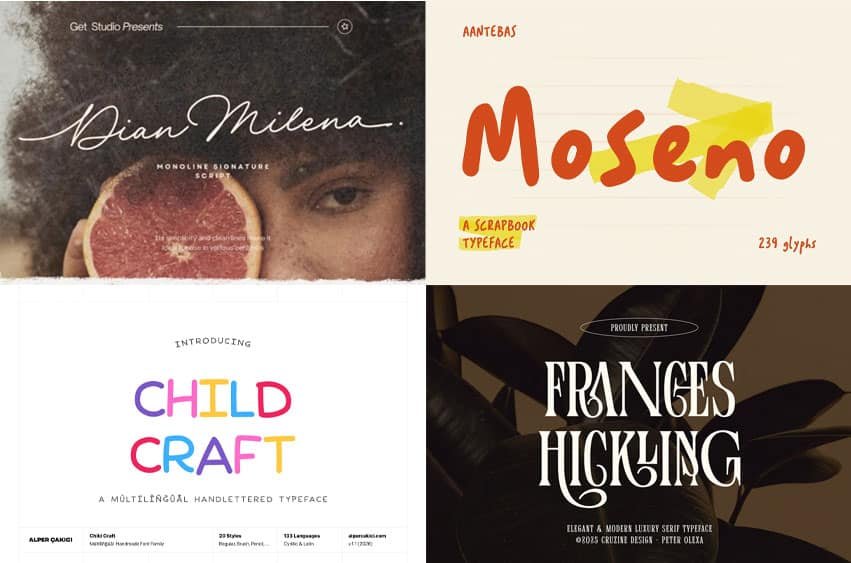
If you sell custom signs, invitations, mugs, or printables, your font choice *is* your product. Not a supporting element — the actual thing the customer is paying for. Which makes it strange how many shops run the same four free scripts every other shop is running.
1. Dian Milena Font— the wedding workhorse
Dian Milena – Signature Script
Signature-style scripts are the backbone of the wedding category, and this one has the casual-but-expensive quality that works on a save-the-date without tipping into formal calligraphy.
Use it for: the couple’s names on an invitation suite, welcome signs, place cards.
Pair it with: a plain serif for the details. Date, time, venue, and RSVP copy should never be in script — your guests need to read an address, not admire it.
Test it on real names before you list. Script fonts break down on specific letter pairs. Type out “Jennifer,” “Ryan,” “Zoe,” anything with a double-L or a capital followed by a descender. That’s where the connections either work or visibly don’t.
2. Moseno Font — for the scrapbook and planner market
Moseno – Handwritten Scrapbook Font
Scrapbook styling is a whole product category on Etsy and in the planner community, and it’s a different job from wedding script: this needs to look like a real person wrote it quickly, not like a calligrapher labored over it.
Use it for: planner stickers, journaling cards, photo overlays, digital scrapbook kits.
Watch for: consistency. The trick with “handwritten” faces is that real handwriting varies. If a font’s letters are too uniform it reads as a font pretending, which defeats the purpose. Check whether it ships alternates that let you vary repeated letters.
3. Child Craft Font— a family, which is rare here
Child Craft – Playful Handwritten Font Family
Most handwritten fonts are a single weight. This is a family, and in a category where that’s unusual, it’s genuinely useful — you can build a full printable with a heading, a subhead, and body copy without switching typefaces.
Use it for: nursery prints, classroom decor, teacher-seller shops, kids’ party printables.
Market note: the teacher-seller segment on Etsy and TPT is large, seasonal (back-to-school hits in July and August), and specifically wants friendly-but-legible. Playful faces that sacrifice legibility don’t sell there.
4. Frances Hickling Font — handwriting, not script
Frances Hickling
Natural handwriting rather than styled script. This is the one for anything that should feel like a note left on a counter — packaging inserts, thank-you cards, the little “handwritten” touch in a shipped order.
Use it for: brand voice moments. The thank-you insert, the care card, the sticker on the tissue paper.
Don’t use it for: the logo. Honest-handwriting faces are deliberately imperfect, and imperfection at wordmark scale reads as sloppy rather than personal.
Selling the font itself, or something that functions as the font, usually is not. This includes: selling an SVG cut file where the font is the file, bundling the font file into a digital download, or selling an editable Canva template that requires the buyer to have the font installed.
“End product” rules and item count limits are real. Many stock licenses cap how many end products you can produce from a single license, and treat “one design” differently from “one physical product.” A personalized item where every unit has a different name may or may not count as one end product depending on the terms.
I’m not your lawyer, and the Envato Elements and Crreative Fabrica license terms are the authority here — not this post and not a Facebook group. Read the license page for the specific item, and if you’re doing SVG cut files or Canva templates, read it twice. That’s the use case where sellers get caught.
Practical notes for handmade sellers
Look for alternates and ligatures. Good scripts ship with swash alternates specifically so “Anna” doesn’t have two identical A’s sitting next to each other. Accessing them needs software that supports OpenType features — Illustrator, Affinity, or Cricut Design Space to a limited degree.